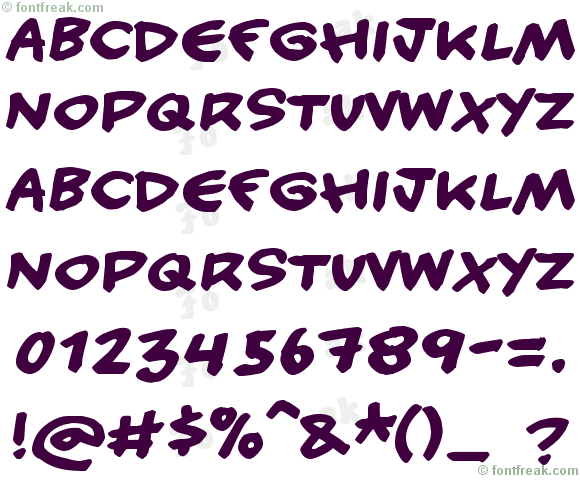
Handy candy
About Handy Candy
Handy Candy, a delightful creation by Pizzadude, is a playful handwritten font that embodies a whimsical charm, making it an excellent choice for various creative projects. Characterized by its rounded strokes and soft edges, this font offers a friendly and inviting appearance that is both approachable and fun. The stroke weight is consistent, providing a smooth flow, while the slight contrast adds a touch of personality, enhancing its overall visual appeal. The spacing is well-balanced, ensuring legibility even in longer texts, and the decorative elements, such as playful loops and curls, evoke a sense of joy reminiscent of candy itself.
This font is particularly suited for projects that require a lighthearted touch. It shines in applications like birthday party invitations, playful branding for children's products, and vibrant restaurant menus that aim to attract a younger audience. Additionally, Handy Candy can add a unique flair to social media graphics and promotional materials, making it an ideal choice for content creators eager to capture attention in a crowded digital landscape. Small business owners looking to establish a friendly brand identity will also find Handy Candy to be an invaluable asset.
The target audience for the Handy Candy font includes graphic designers, small business owners, and content creators who are seeking to infuse their work with a sense of playfulness and creativity. The font's free license allows for unrestricted use, enabling users to distribute it freely while exploring its versatility across various design mediums.
What sets the Handy Candy font apart is its ability to evoke joy and nostalgia, making it perfect for projects that aim to connect emotionally with the audience. Its charming design and accessibility through the Handy Candy font free download make it a standout choice for anyone looking to bring a touch of whimsy to their designs.